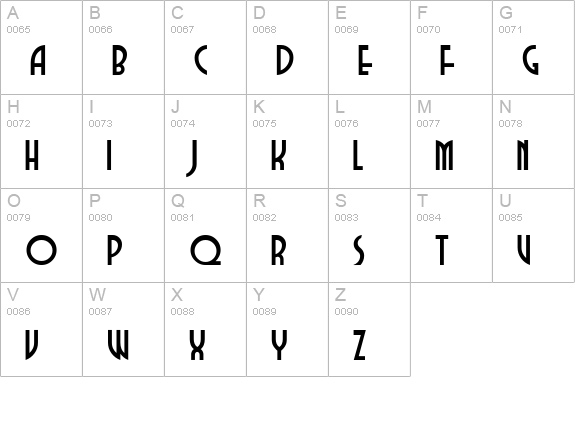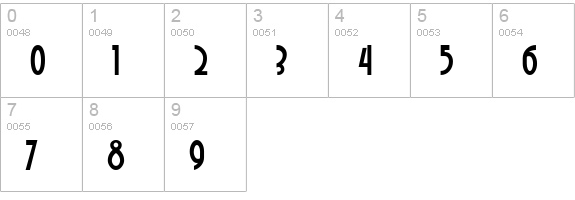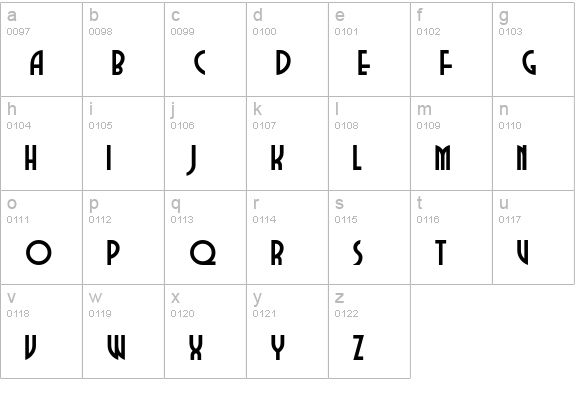
DubbaDubbaA Font Details
Introducing DubbaDubbaA, a font that effortlessly combines modern elegance with a touch of whimsy. With its unique and playful letterforms, DubbaDubbaA is bound to make any design project stand out from the crowd. This versatile font is perfect for a wide range of applications, from branding and logos to headings and signage. Its clean lines and bold strokes create a strong visual impact, while its subtle curves add a hint of personality and charm. But what truly sets DubbaDubbaA apart is that it is not only aesthetically pleasing, but also freely available to download at FontsMarket.com. Yes, you read that right - this incredible font can be yours at no cost! Now you can enjoy the beauty and versatility of DubbaDubbaA without breaking the bank. Whether you're a professional designer or a creative enthusiast, DubbaDubbaA is a must-have addition to your font collection. Its wide range of weights and styles gives you the flexibility to create a variety of looks, while its legibility ensures that your message is always clear and impactful. So don't miss out on this amazing opportunity to enhance your design projects with DubbaDubbaA. Head over to FontsMarket.com today and start exploring the endless possibilities that this free font has to offer.